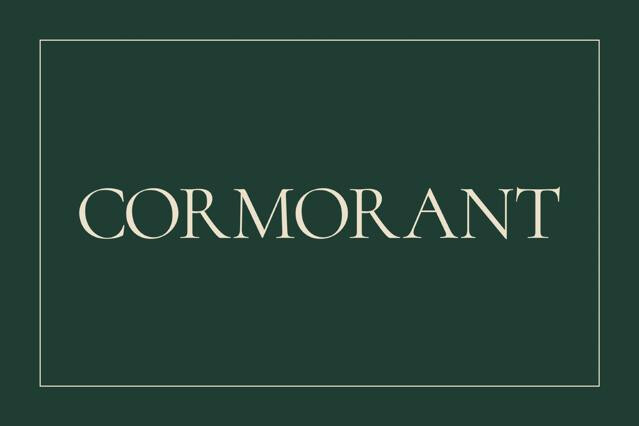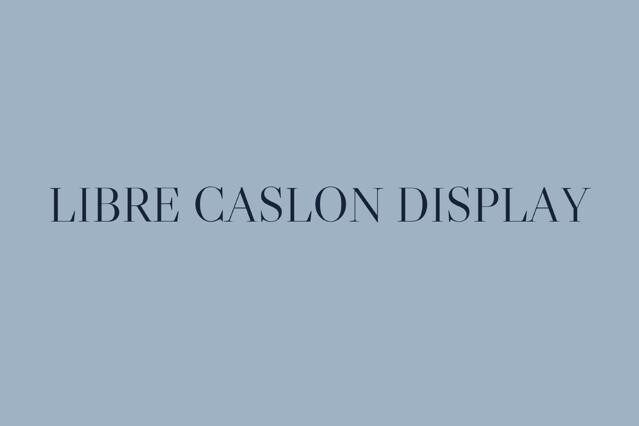
Vintage Serif Fonts
The charm of vintage serif fonts comes from the details: softer curves, heavier brackets, terminals with personality. Inside are old-style book serifs, Victorian and luxury display, 70s poster and mid-century cuts, retro surf serifs, vintage slabs, plus distressed and engraved one-offs.
Vintage serif fonts: warm letters with a past
Pull an old book off a shelf at a thrift store, or look at a beer label and notice the letters: a bit heavier than they need to be, rounder, with little decorative habits nobody draws anymore. That's the territory. A vintage serif keeps the quirks that give away the decade, because the decade is what you're there for.
Our favorite story here is a font called Souvenir, and we like it because it shows how a typeface can live several lives. It was drawn in 1914, nobody paid much attention, and it slept for fifty years. Then in 1971 Ed Benguiat dusted it off for ITC, and it woke up at exactly the right moment: cheap phototypesetting had just made fonts affordable to every small print shop in America, everyone bought the friendly-looking new serif, and suddenly it was everywhere. And we mean everywhere. If you ever held a Choose Your Own Adventure book or an early Dungeons & Dragons manual, you've read pages of Souvenir. Designers of that era grew to hate it the way people now hate Comic Sans, purely from overexposure.
But here's the ending. The kids who read D&D manuals grew up and became designers, and to them that soft rounded serif isn't lazy 70s typesetting, it's the smell of their childhood bedroom. The same font, unchanged, moved from beloved to despised to missed. Every font in this genre is somewhere on that wheel, and when you pick one, you're really picking a decade and its context.
Vintage serifs by era
• Victorian display serifs: ornamented letterforms with ball terminals and drawn details, the era's love of decoration intact.
• Old-style book serifs: reading faces with centuries of page time behind them, the quiet end of the shelf.
• 70s poster serifs: soft, rounded, warm, the register the decade printed everything in and later had feelings about.
• Retro surf serifs: sun-faded display with beach-town signage energy.
• Vintage slabs: sturdy square-serifed faces from the advertising and catalog tradition.
• Wonky display revivals: contemporary fonts that exaggerate old-style quirks on purpose, the past with the volume up.
Working with vintage serifs
These letterforms spent their first life on paper, and paper was never pure white: it was cream, ivory, slightly toasted around the edges. Instead of the screen's default #FFFFFF, warm the background toward cream or soft gray, even five percent, and watch the font relax into it. Same with the text color: instead of pure black, try a very dark warm gray, the color ink actually dries to.
Next, open the glyph panel before you go hunting for decorations elsewhere. Good vintage revivals usually ship with a whole drawer of period accessories: swash capitals, ornaments, little pointing hands, catchwords like "and" or "of" drawn as single decorative pieces. Some designers skip the panel, then go pull a flourish from a stock site, and the flourish is from the wrong decade, drawn at the wrong weight, and it never quite sits with the letters. The ornaments inside the font were drawn by the same hand, at the same weight, for this exact alphabet, so they match in a way nothing imported will. A reminder: use one or two, not the whole drawer.
And before you commit to any font in this genre, type a date and a price. Not the alphabet, a date and a price: "EST. 1927," "$4.50," an ampersand while you're at it. Vintage projects need these constantly, anniversaries, menus, labels, and here's the catch: some vintage-styled fonts put all their love into the letters and then ship numerals that look borrowed from a modern sans, plain and characterless next to the ornate alphabet. You won't notice on the specimen, but you'll notice on the wine label, when the vintage year looks like it arrived from a different file.
Where vintage serifs feel at home
• Craft spirits, wine, and cider labels with a year to display.
• Restaurants and bars in the heritage register: steakhouses, cocktail bars, trattorias.
• Book covers for historical fiction, classics reissues, and literary lists.
• Apothecary-style packaging: soaps, candles, tinctures with hand-numbered batches.
• Boutique hotels and B&Bs.
• Editorial nostalgia pieces and anniversary issues.
• Wedding stationery in the antique register, ornaments included.
Period machinery: Victorian ball terminals and ornament, wood-type weight and bracketing, the soft roundness of metal-era book faces, 70s poster curves. A vintage serif keeps the quirks a modern revival would sand off, and those quirks are what date the letter, in the flattering sense.
A wide sweep, from Victorian display through old-style book faces to 70s poster serifs. When a project needs one specific decade, read the individual specimens; "vintage" is a direction, not a date.
The book-flavored ones, yes: several descend from genuine text traditions and set paragraphs comfortably. The decorative Victorians and poster faces are display animals; at text sizes their character turns into clutter.
Less than the temptation suggests. The font already carries the era; add aged paper, ornaments, and three more period fonts, and the design tips from vintage into pastiche. One strong period voice against clean modern surroundings usually works best.
Either their contemporaries done quietly (a plain grotesque of similar vintage) or deliberate anachronism (a crisp modern sans for contrast). The pairing decides whether the design says "from then" or "about then," and those are different messages.